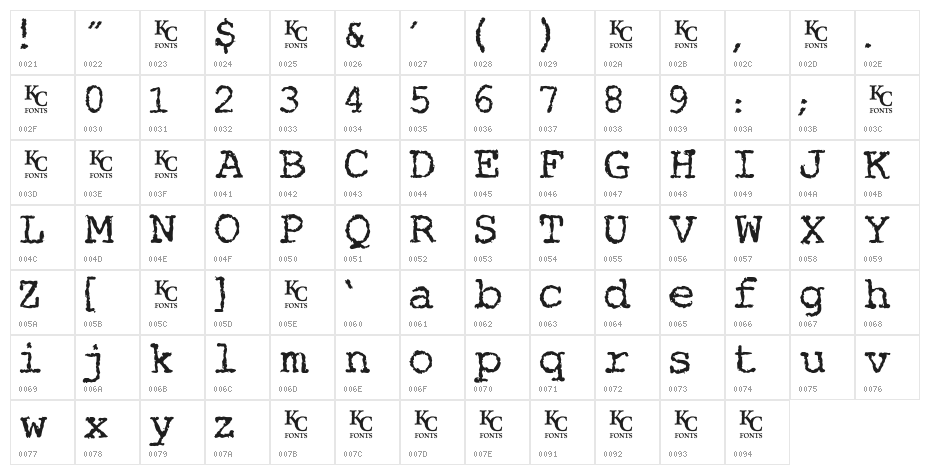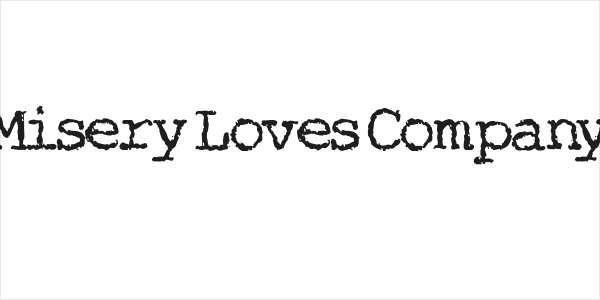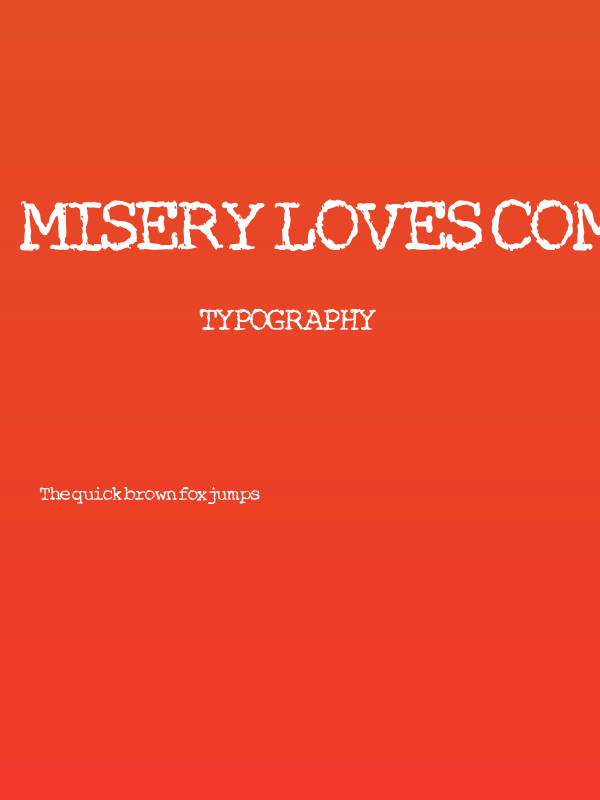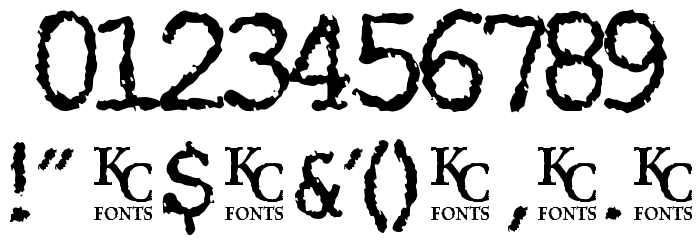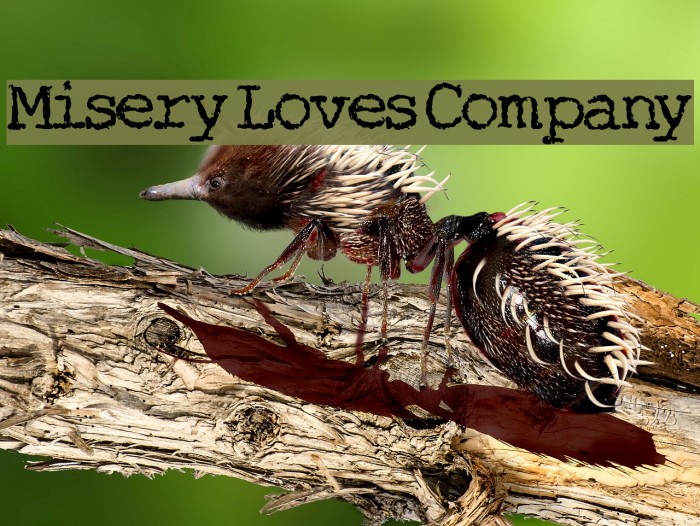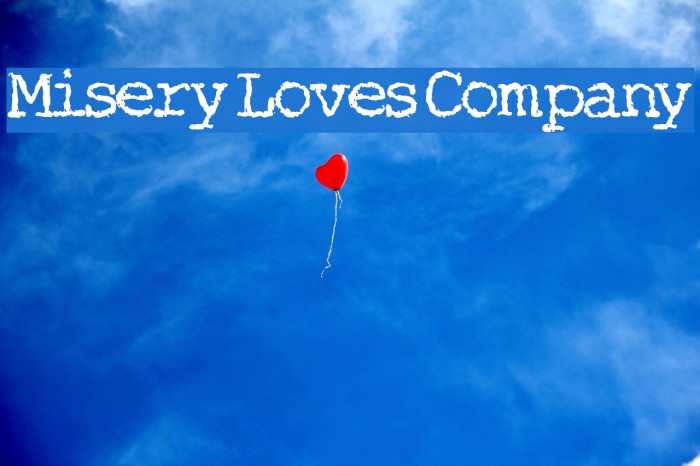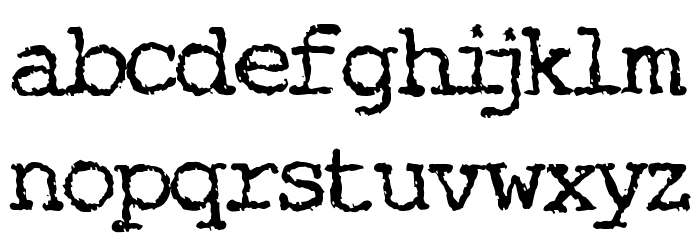
Misery Loves Company Font
Misery Loves Company Description
This font features a distressed and grungy aesthetic, with uneven edges and a textured appearance that gives it a hand-crafted feel. The characters are bold and have a rugged, organic look, reminiscent of ink that has bled on paper. This style is consistent across both uppercase and lowercase letters, as well as numbers and special characters. The font's unique character is further emphasized by its irregular stroke thickness, which adds to its raw and edgy vibe.
| Overall Style | Grunge, Urban, Edgy |
| Use Case | Posters, Album covers, Branding |
| Proposed Projects | Ideal for projects that require a gritty, urban feel such as music album covers, posters for alternative events, or branding for edgy fashion lines. |